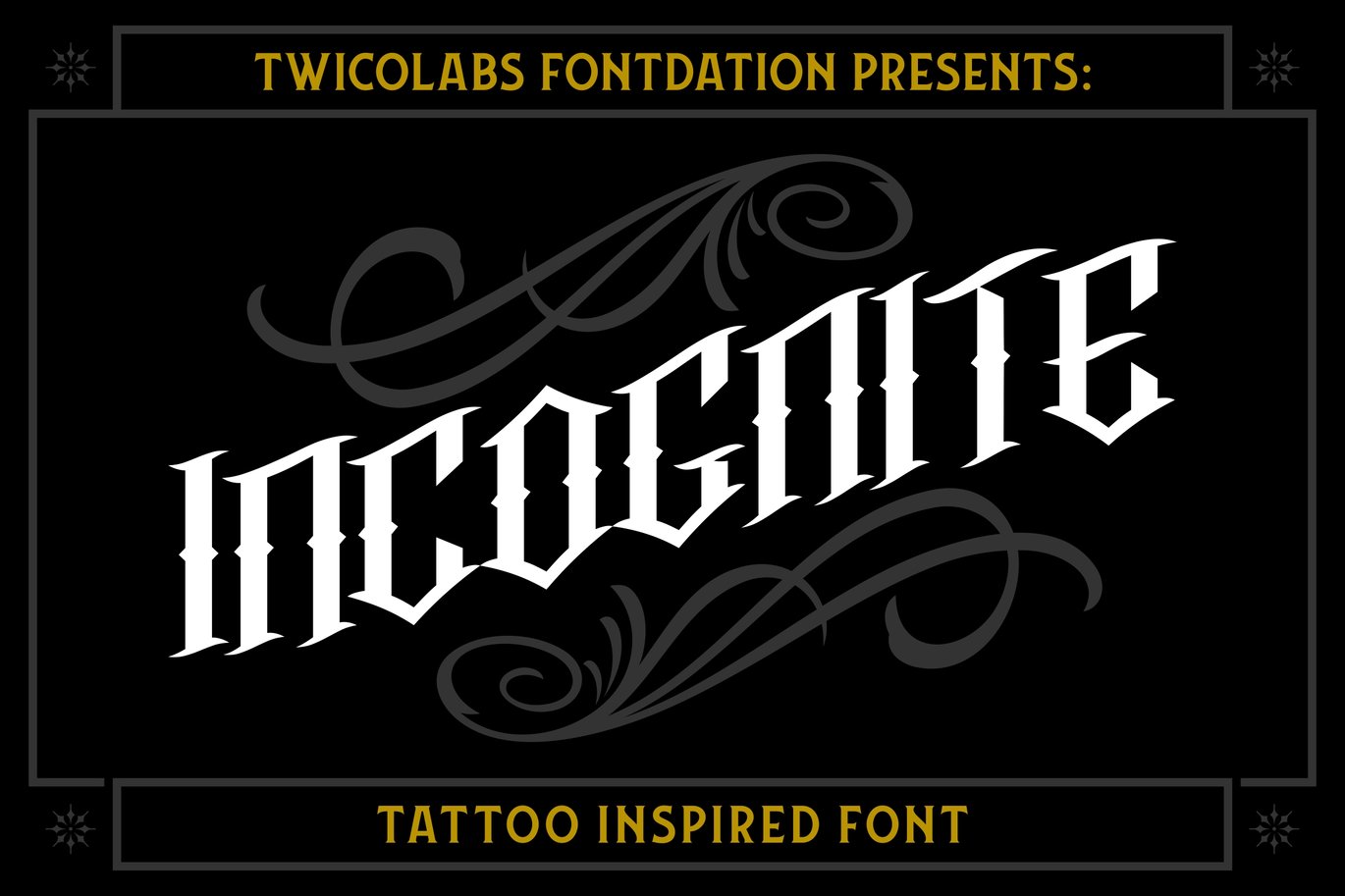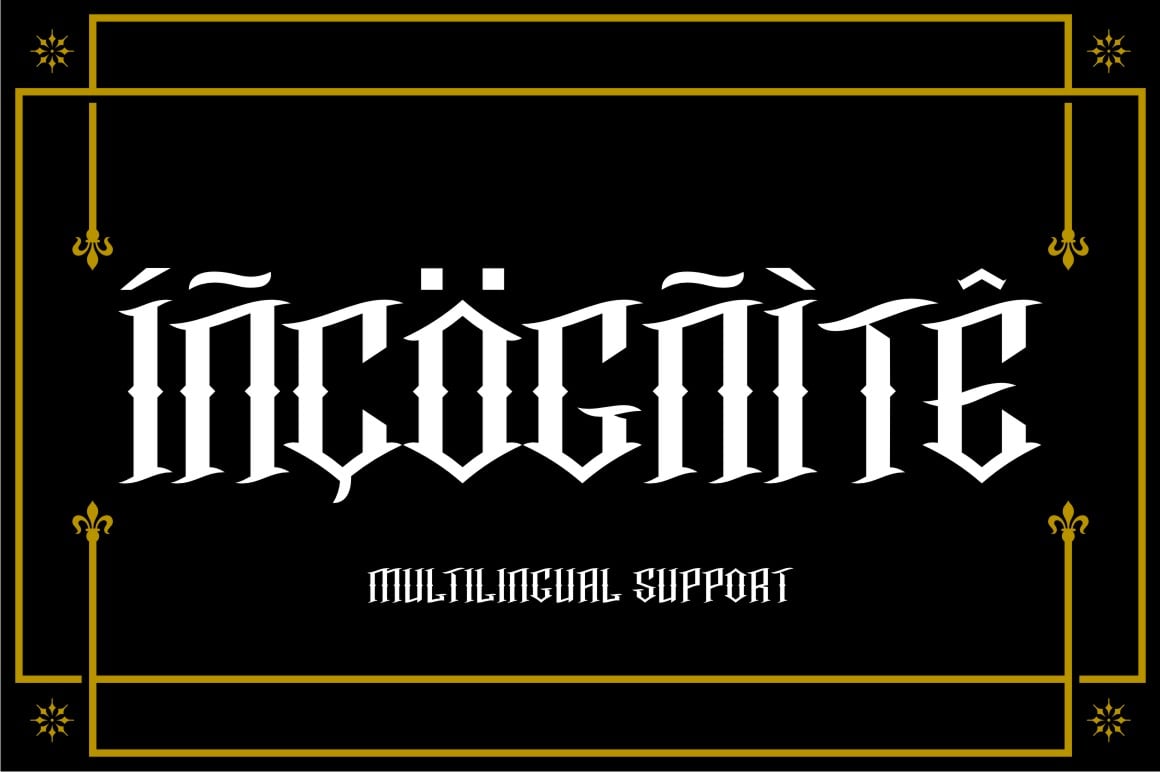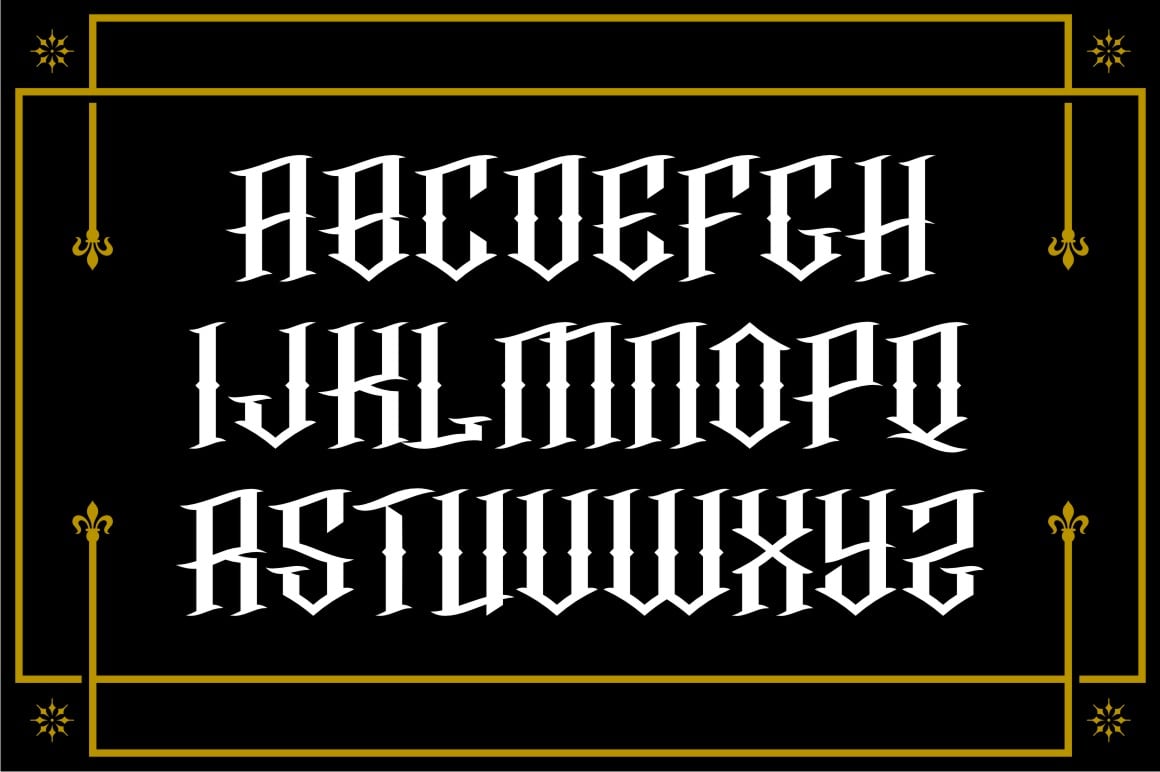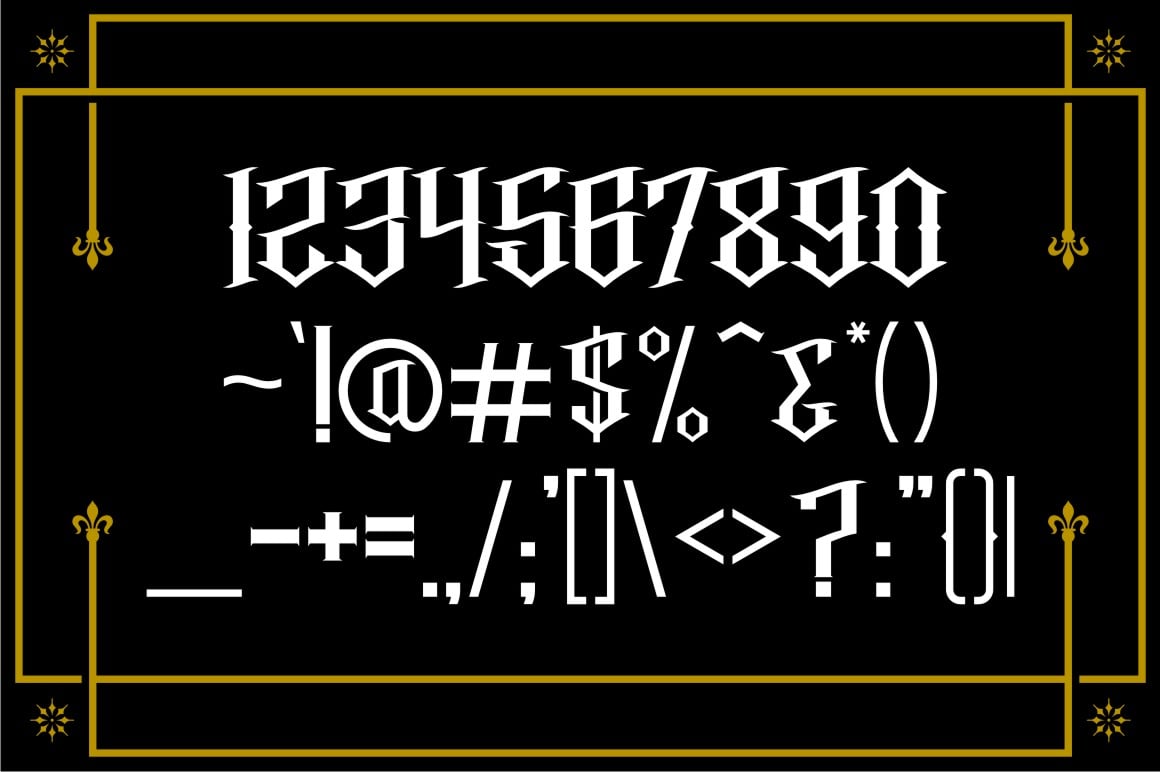
Incognite Tattoo Font
Like its older brother Incognito, Incognite offers you a classic tattoo feel. This blackletter font suits best for most of design themes, such as: motorbike themed t-shirt design, custom tattoo lettering, sporty e-sport logotypes, etc. This badass comes in two formats (OTF and TTF).